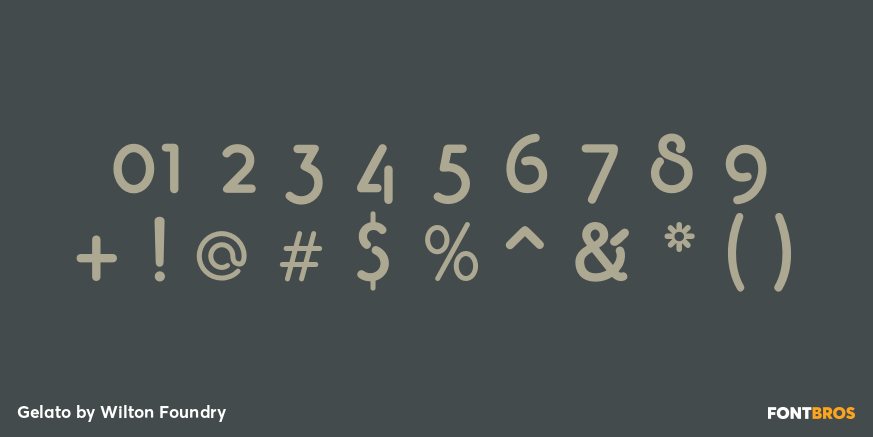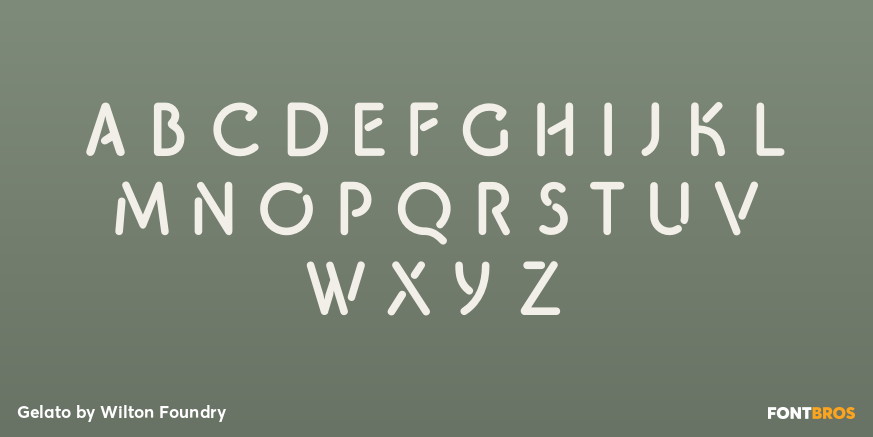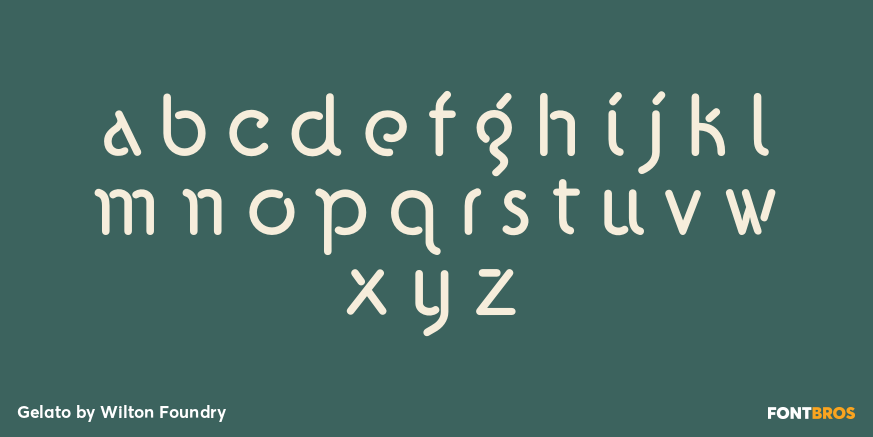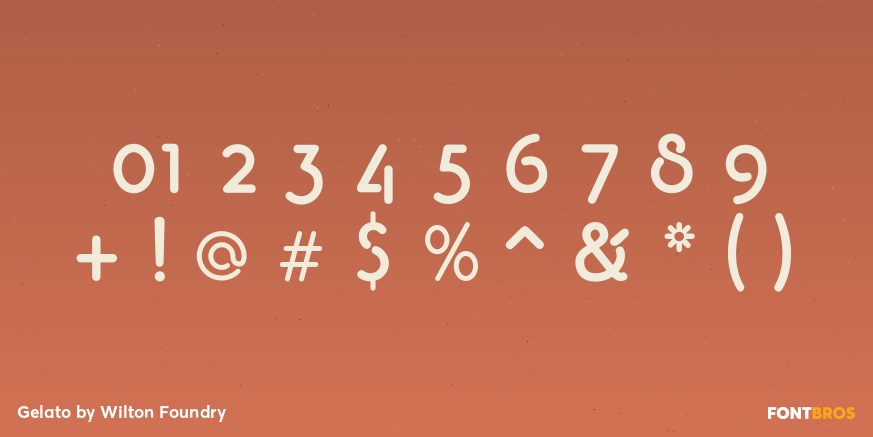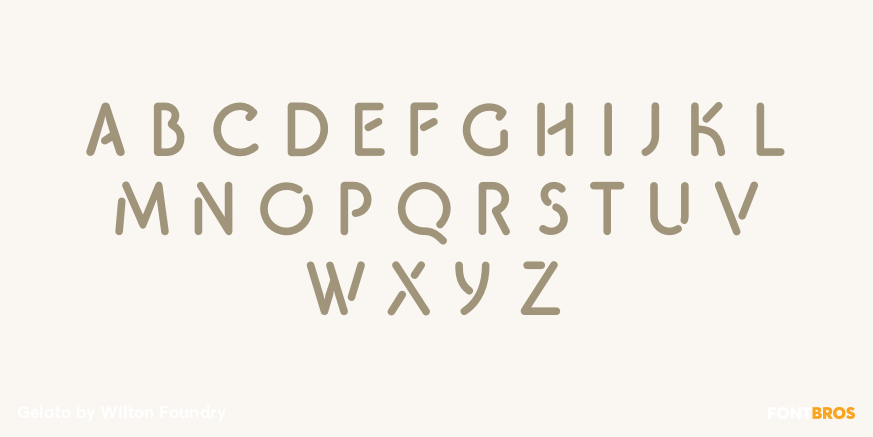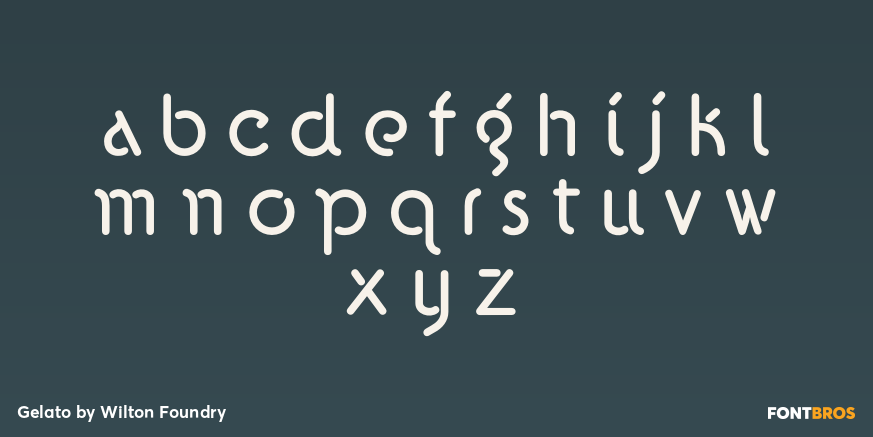
Gelato
Font Family by Wilton Foundry
Gelato is an expressive and fun fusion between calligraphy and stencil. It is ideally suited for logotypes and attention-grabbing headlines. Gelato features a unique slanted dot over the ?i?, ?j? and ?g?. The same slant is repeated in numerous other characters resulting in a fresh, slightly European look. It also reverses very well!